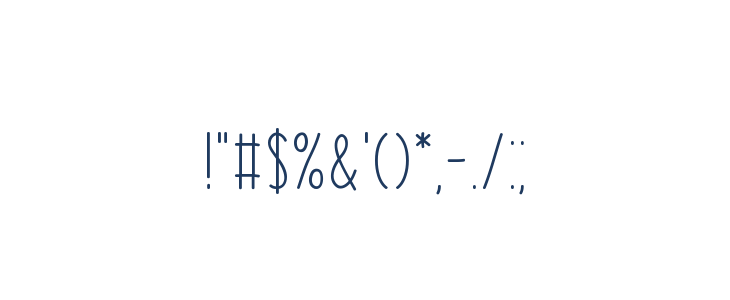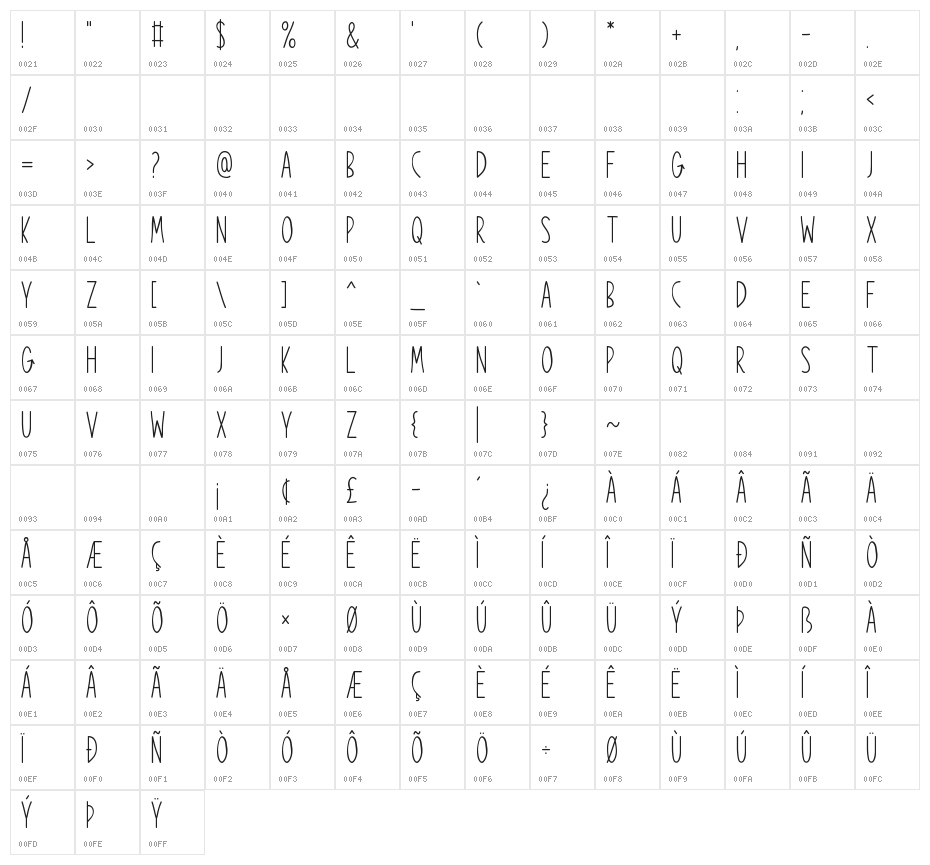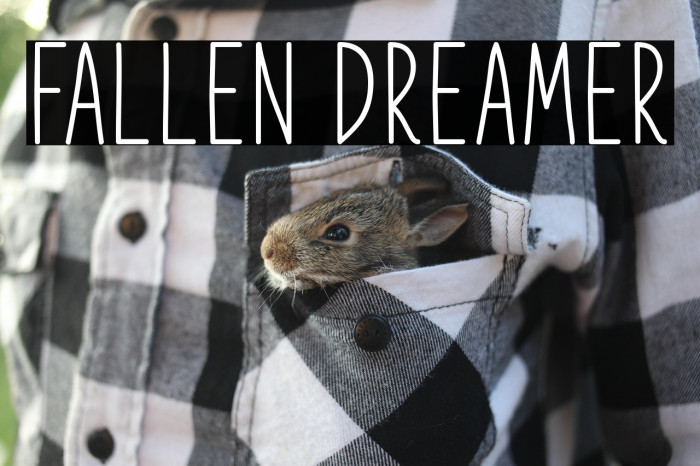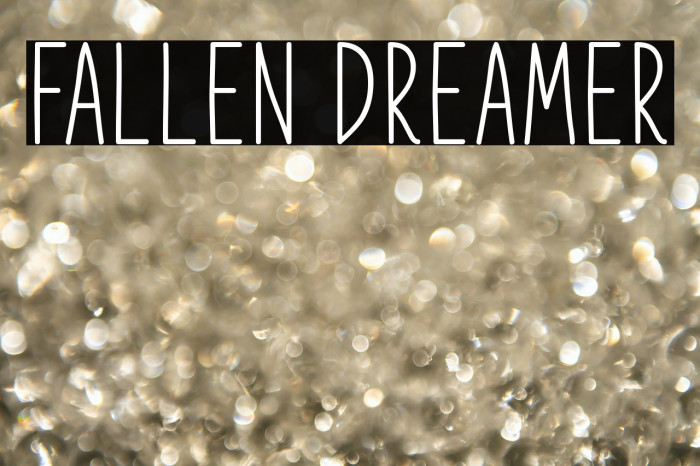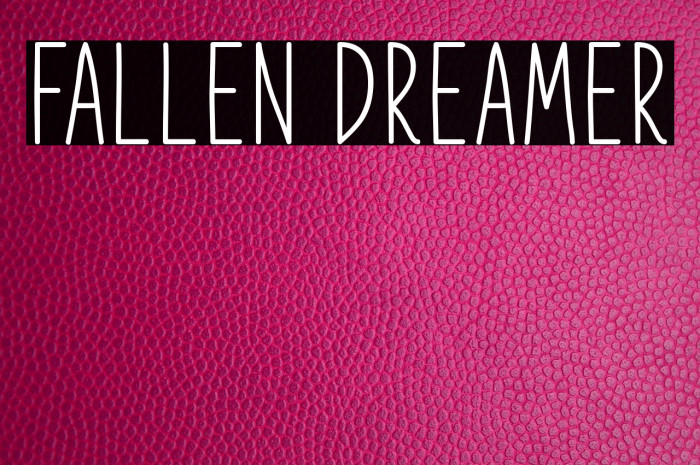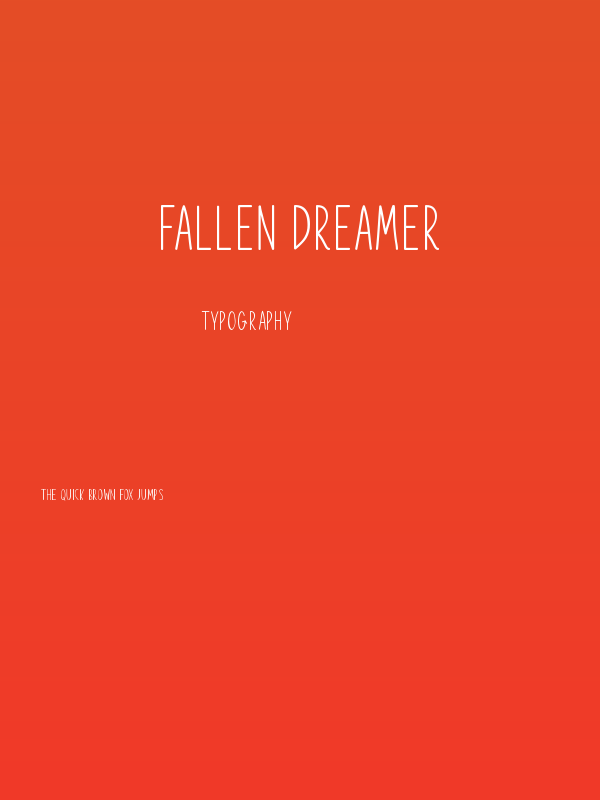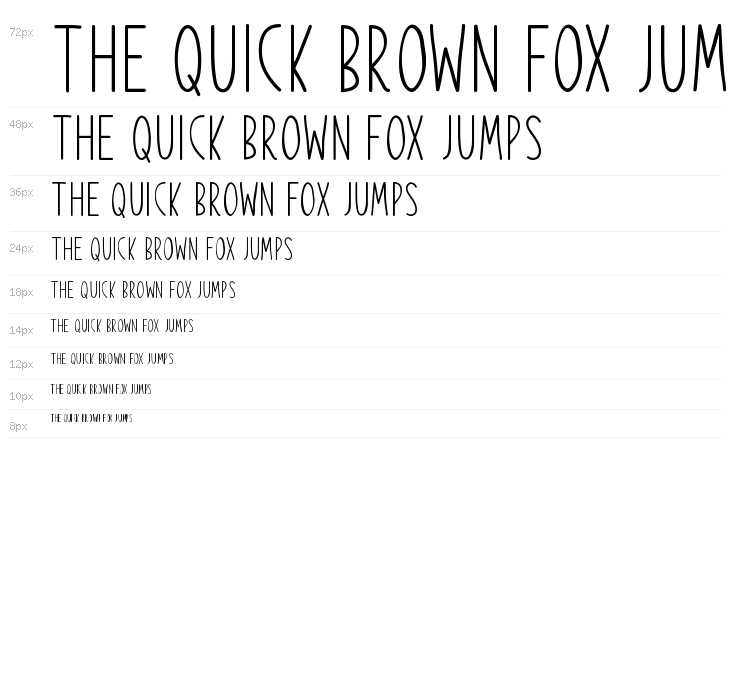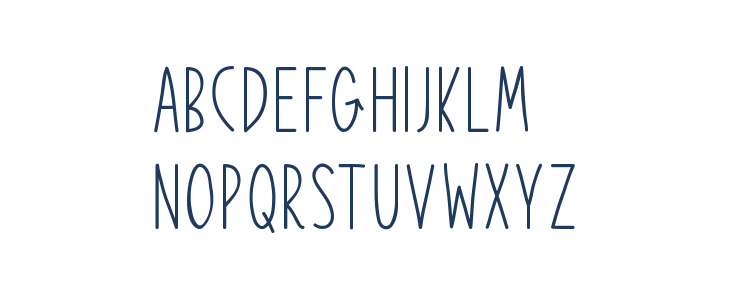
Fallen Dreamer Font
Fallen Dreamer Description
This font features a playful and whimsical design with tall, narrow letters that have a hand-drawn appearance. The strokes are consistent in width, giving it a clean and modern look. The uppercase and lowercase letters maintain a uniform height, contributing to its legibility. The characters have a slight tilt, adding a dynamic and lively feel. The special characters and numbers are designed to match the overall style, ensuring cohesion across all elements. This font is ideal for projects that require a touch of creativity and informality.